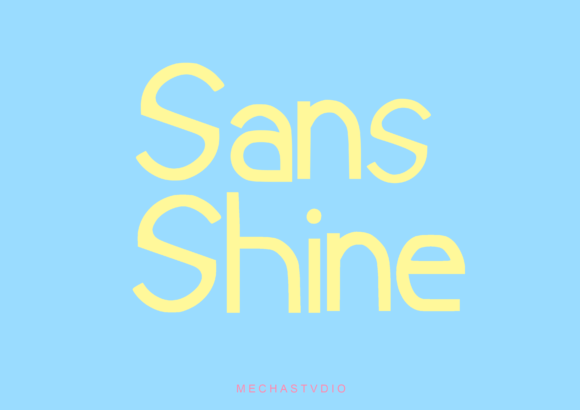
Introduction to Sansrise Font
SansRise is a modern, simple, and unique sans serif font.
Its unique style is perfect for all your projects as it has the potential to transform them into a true standout .
Sansrise Font offers exceptional quality and versatility, making it a valuable addition to your design toolkit. Whether you’re creating for personal projects or commercial use, Sansrise Font delivers professional results.